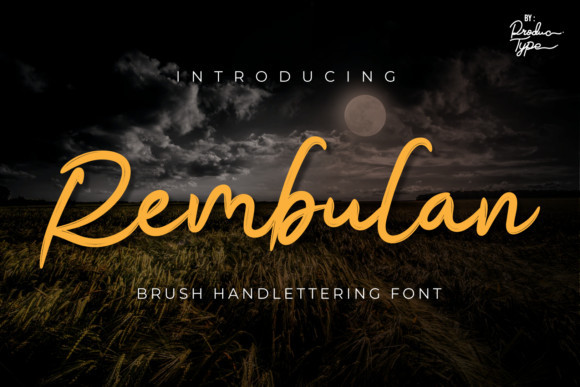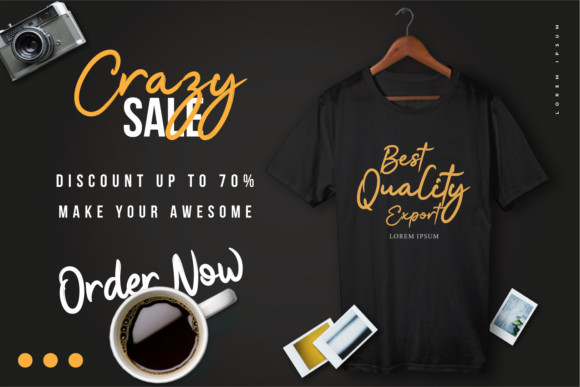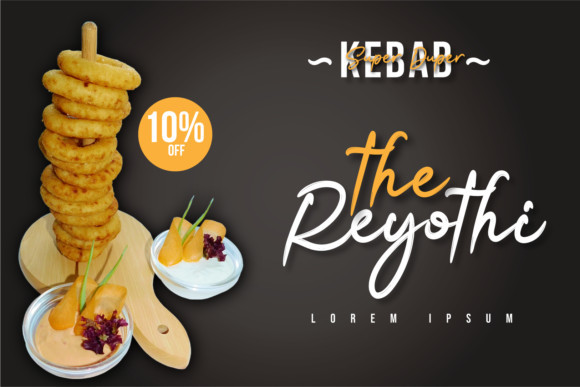
Rembulan Font
Rembulan is a sweet, whimsical and flowing brushed handwritten font. It has a trendy style and it will certainly enhance your project ideas.